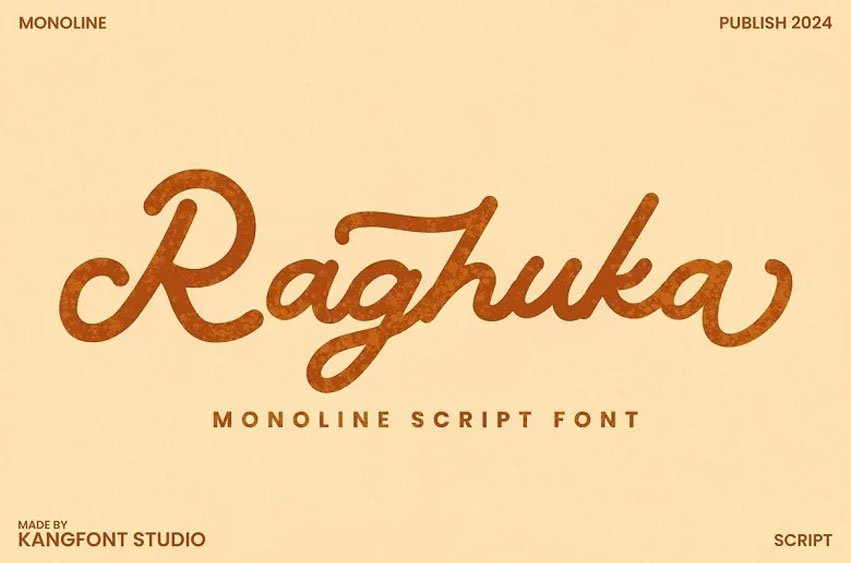
Raghuka Font
Raghuka Font is a modern script monoline typeface with elegant and attractive handwriting look. Its uniform surface gives a welcoming, yet corporate appearance.
Ideal for logos, branding, poster, invitation, and other forms of artwork.